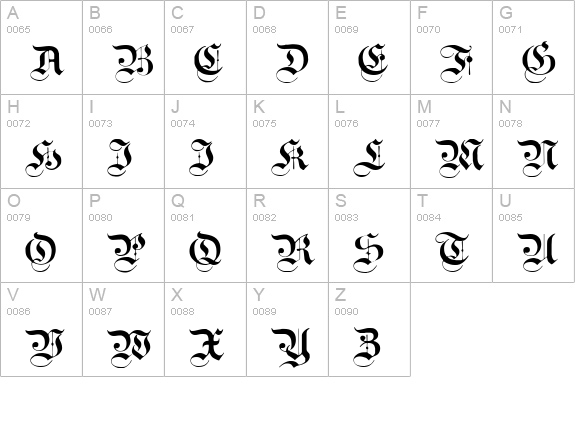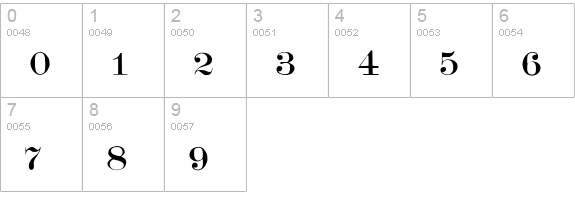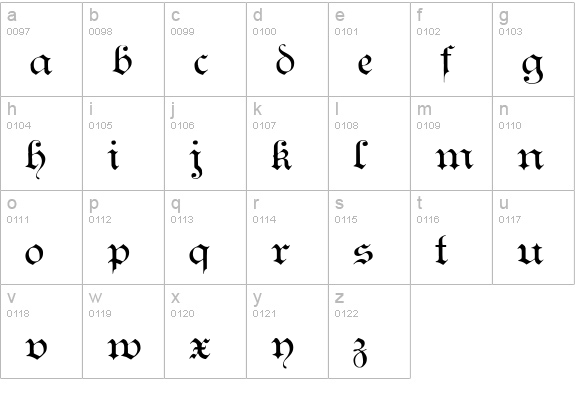
Teutonic No1 DemiBold is a sub-bold, structured variant in the Teutonic typeface family \xE2\x80\x94 well suited to sub-headlines and emphasised passages.
Teutonic No1 DemiBold font is a robust and powerful typeface that exudes strength and sophistication. With its bold strokes and clean lines, this font commands attention and adds a touch of modern elegance to any design project. Perfect for headlines, logos, and branding materials, Teutonic No1 DemiBold stands out for its impactful presence and versatility. And the best part? Teutonic No1 DemiBold font is available for free download at FontsMarket.com. Now you can elevate your designs with this premium font without any cost. Don't miss out on this opportunity to add a touch of class to your projects with Teutonic No1 DemiBold font, easily accessible and ready to enhance your creative endeavors. Download it now and unleash the power of this stunning typeface in your designs.